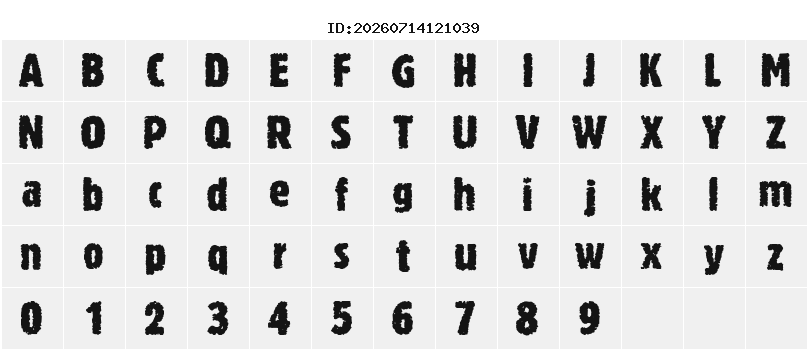
• Font Name: HeartOfStone
• Full Font Name: HeartOfStone
About HeartOfStone.ttf
HeartOfStone.ttf is a modern, elegant sans-serif font designed for ultimate readability and visual harmony. Perfect for branding, headlines, web design, and print materials.